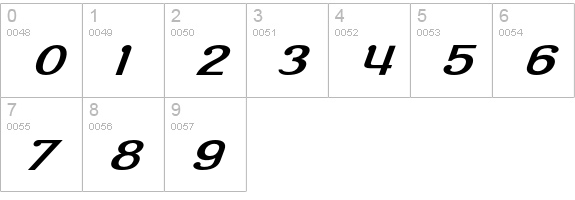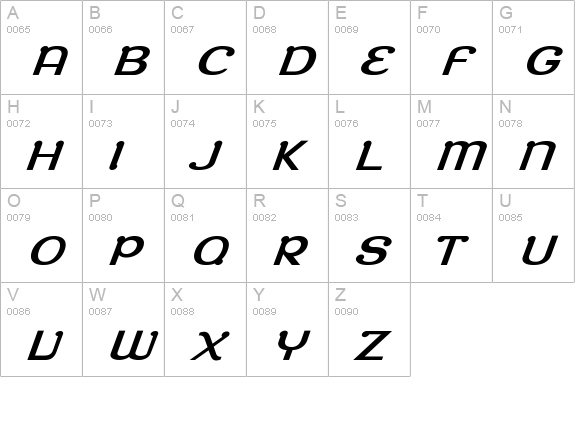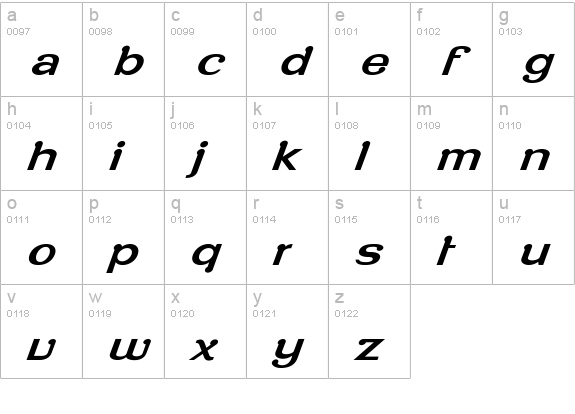
Roppongi-Oblique Font Details
Roppongi-Oblique is a distinctive, italic variant in the Roppongi typeface family \xE2\x80\x94 well suited to design and typography projects.
Roppongi-Oblique font is a modern and stylish typeface that exudes a sense of elegance and sophistication. With its sleek lines and slanted design, this font is perfect for adding a touch of contemporary flair to any project. Whether you're designing a website, creating a logo, or working on a print project, Roppongi-Oblique font is sure to make a statement. What's even better is that Roppongi-Oblique font is available for free download at FontsMarket.com. This means you can easily access this stunning font and use it in your designs without any cost. Don't miss out on the opportunity to elevate your projects with the striking Roppongi-Oblique font - download it now and let your creativity shine!